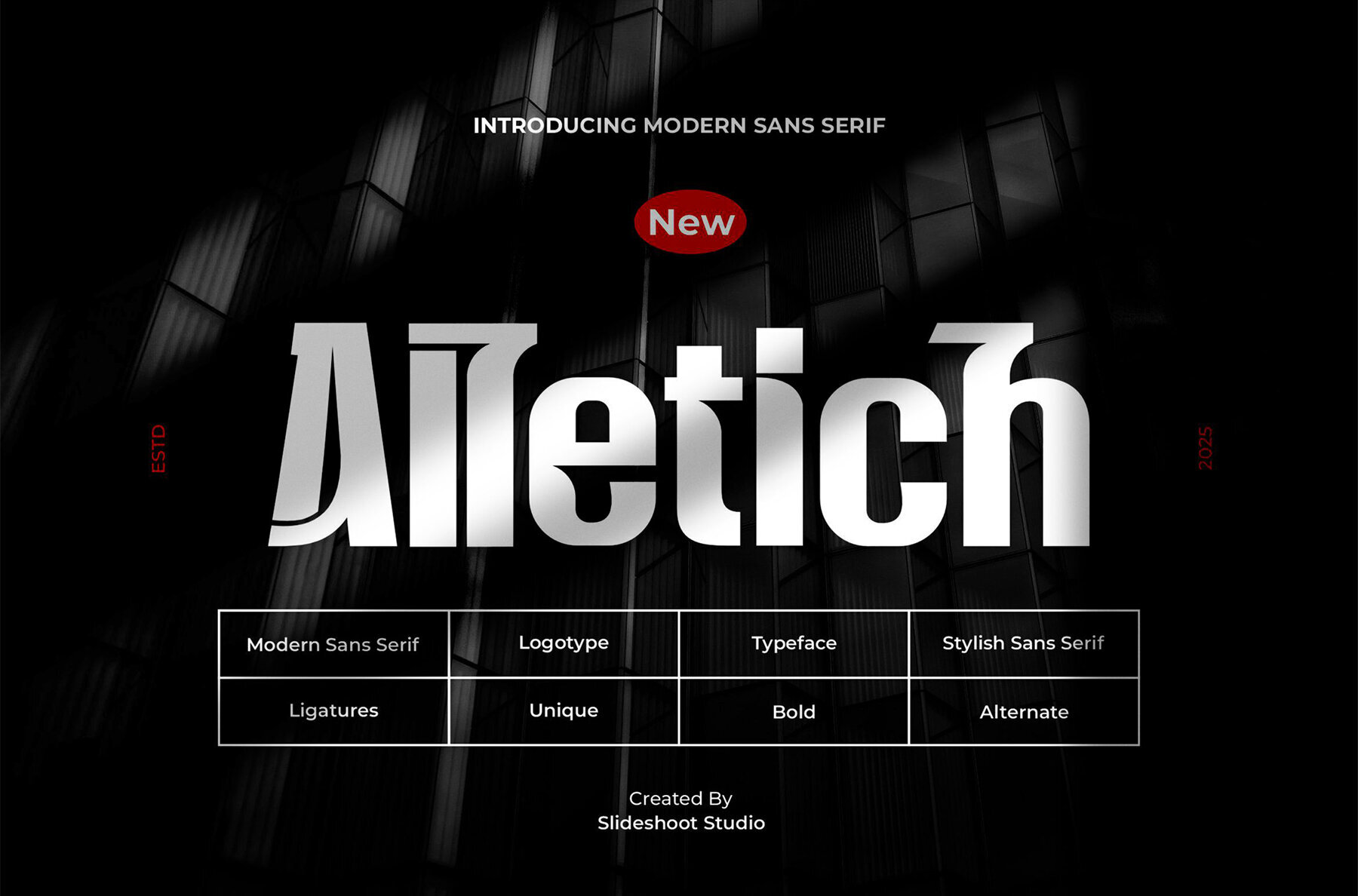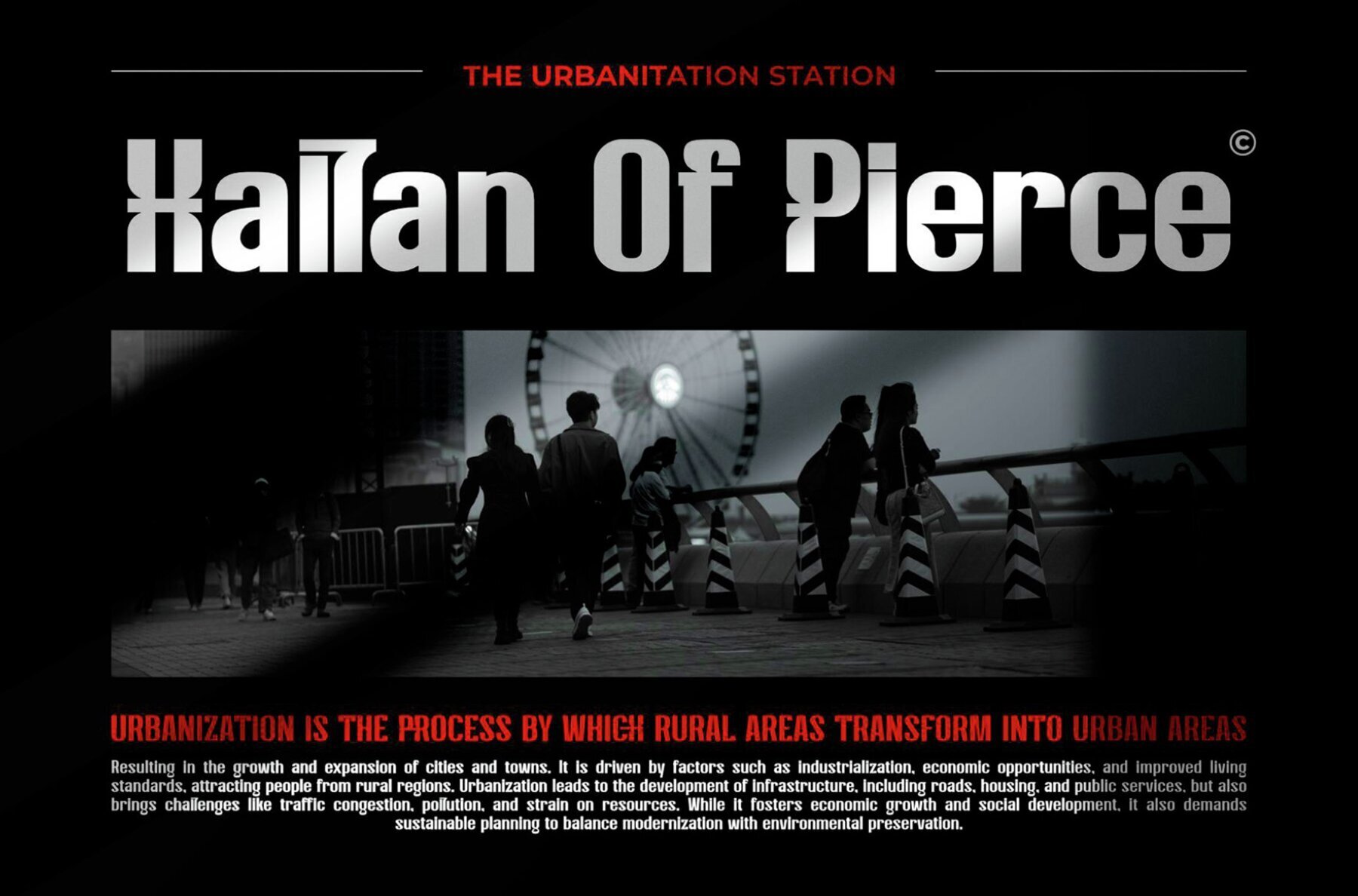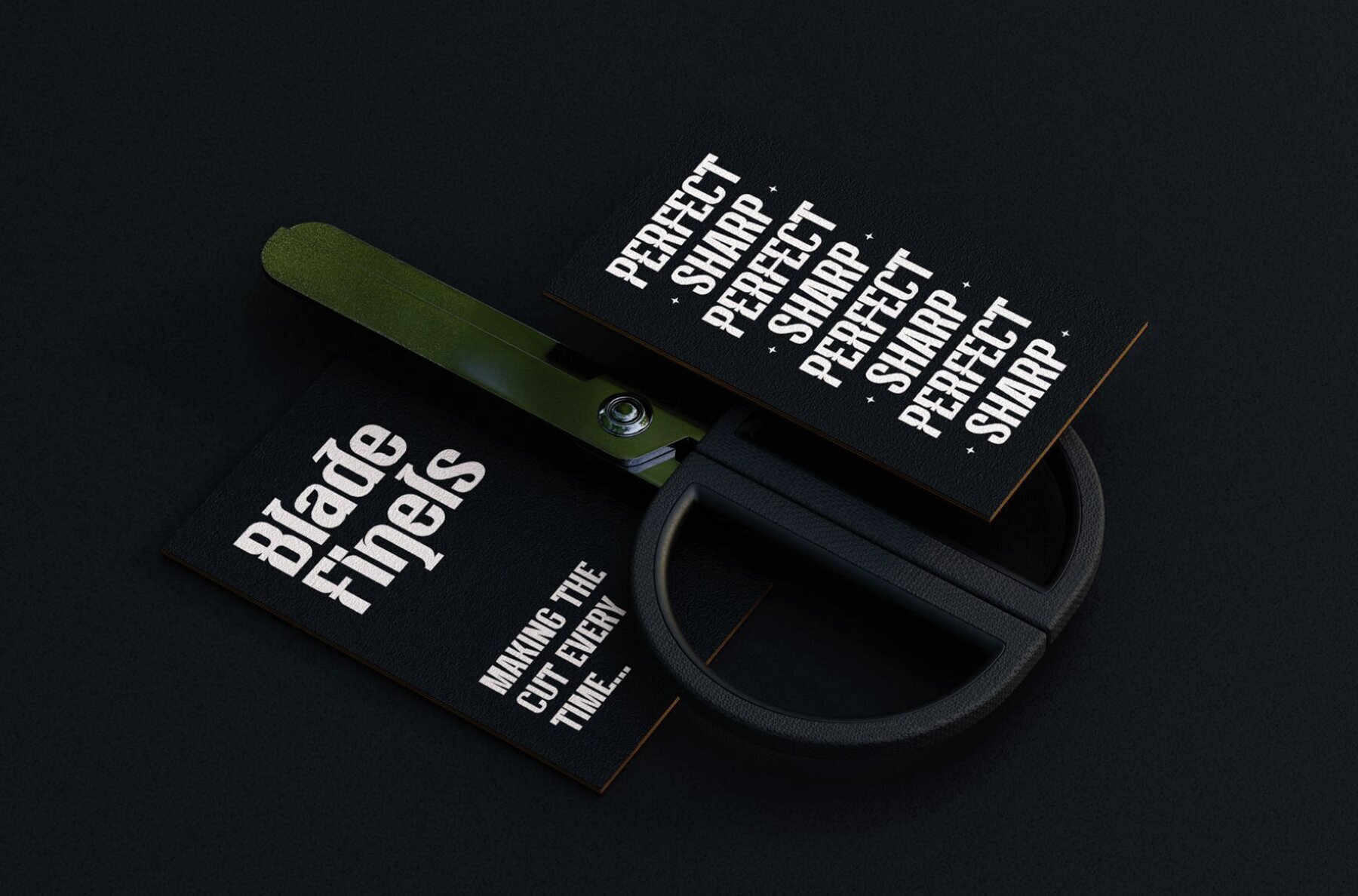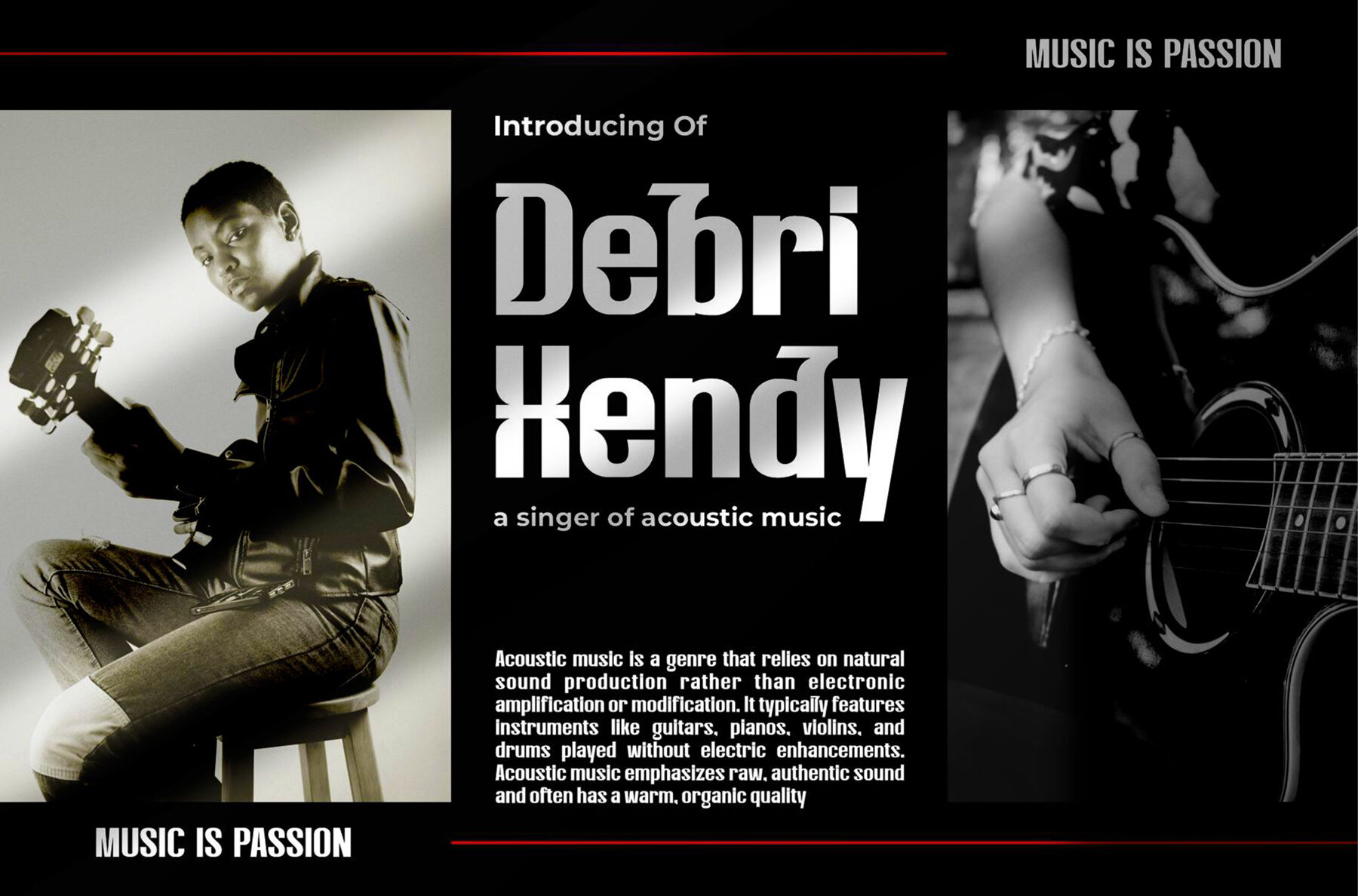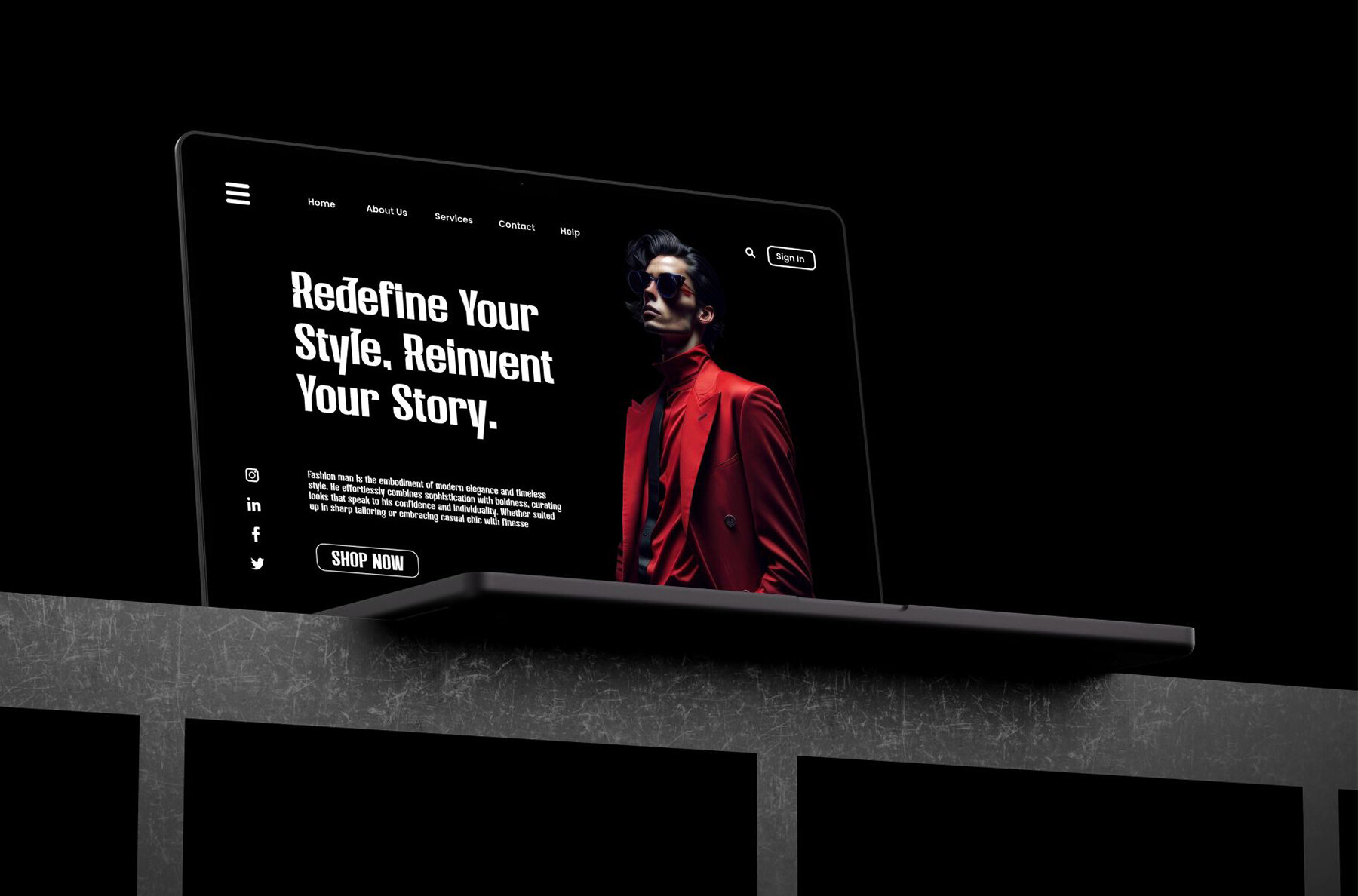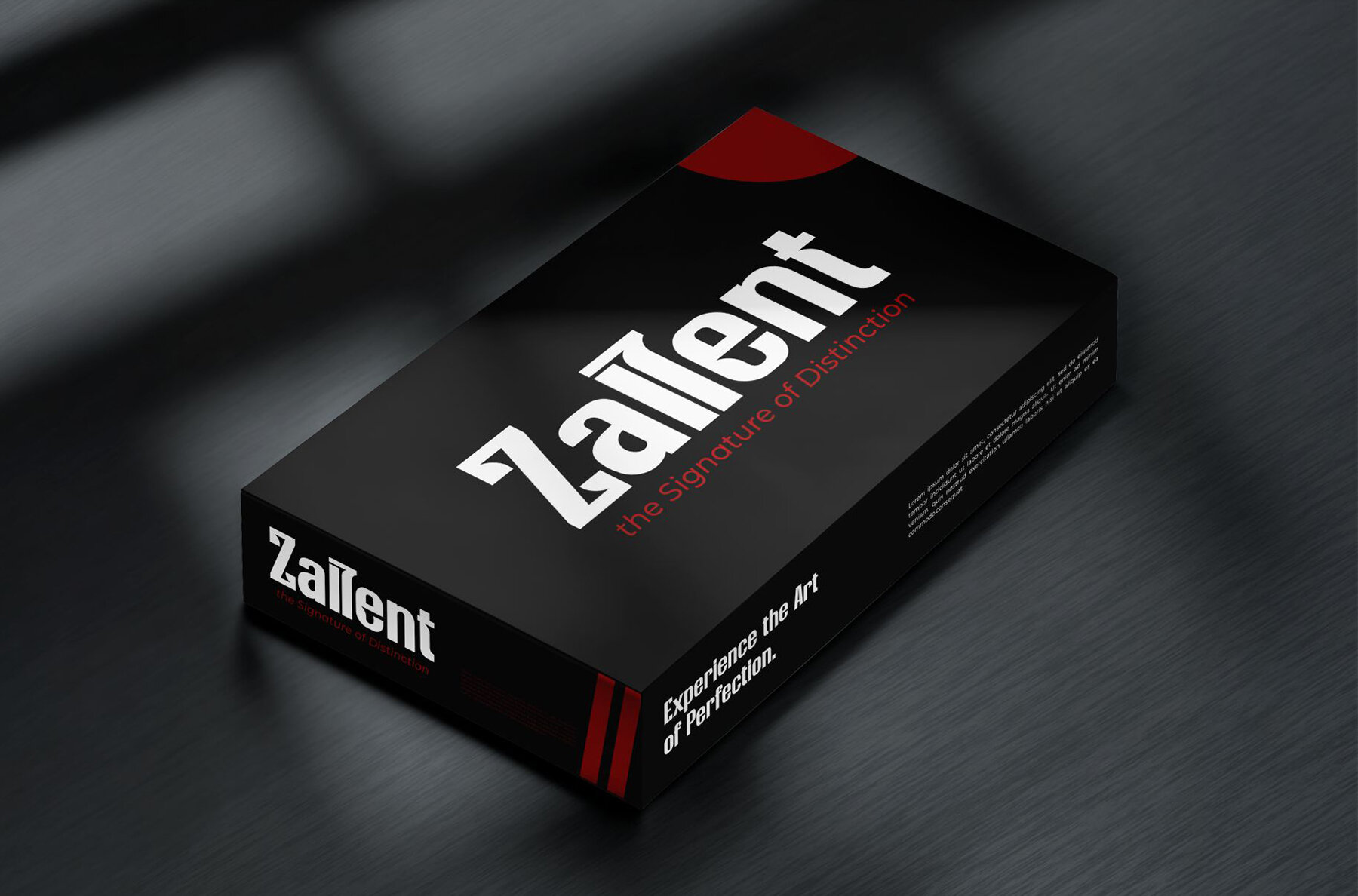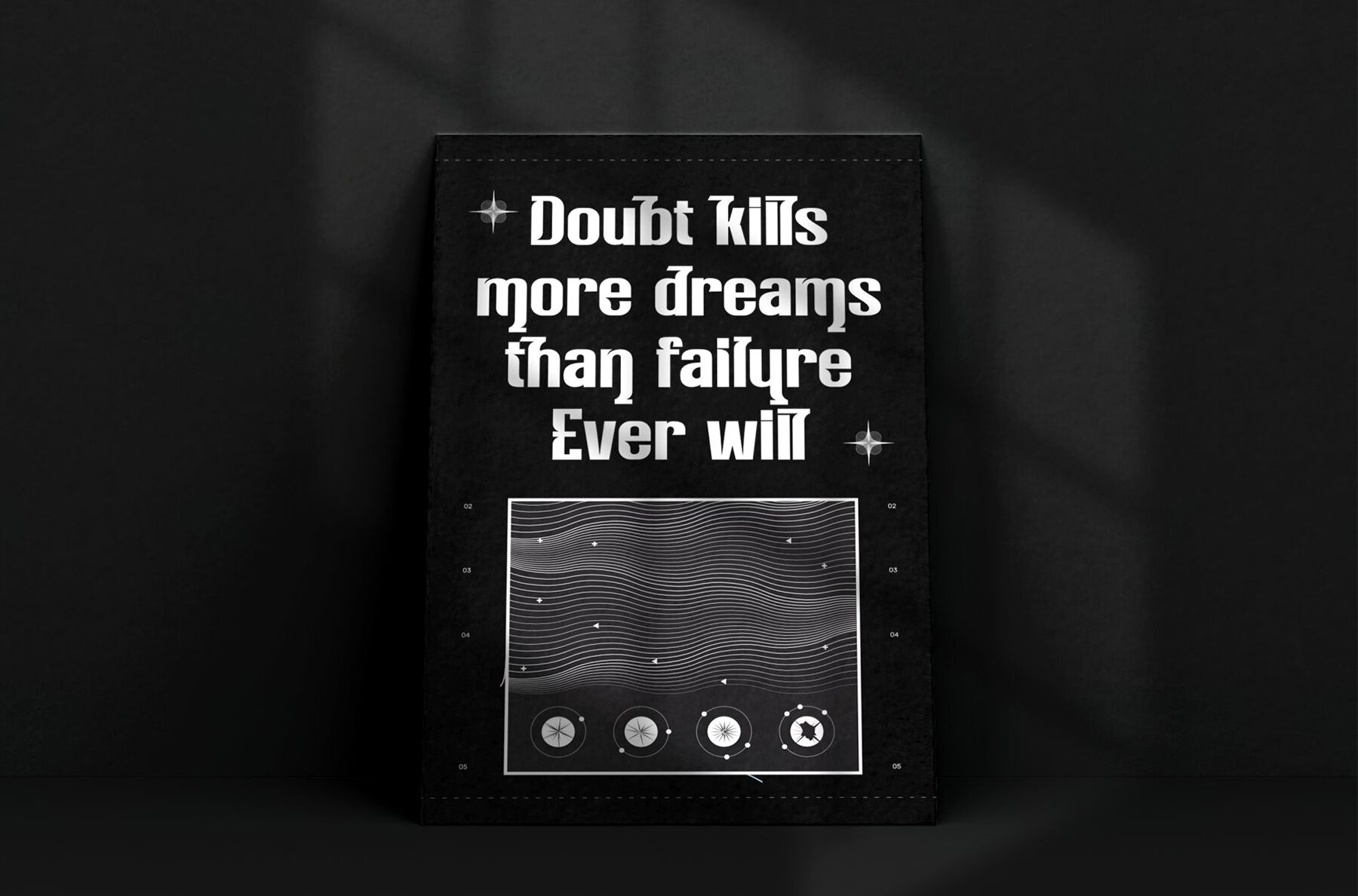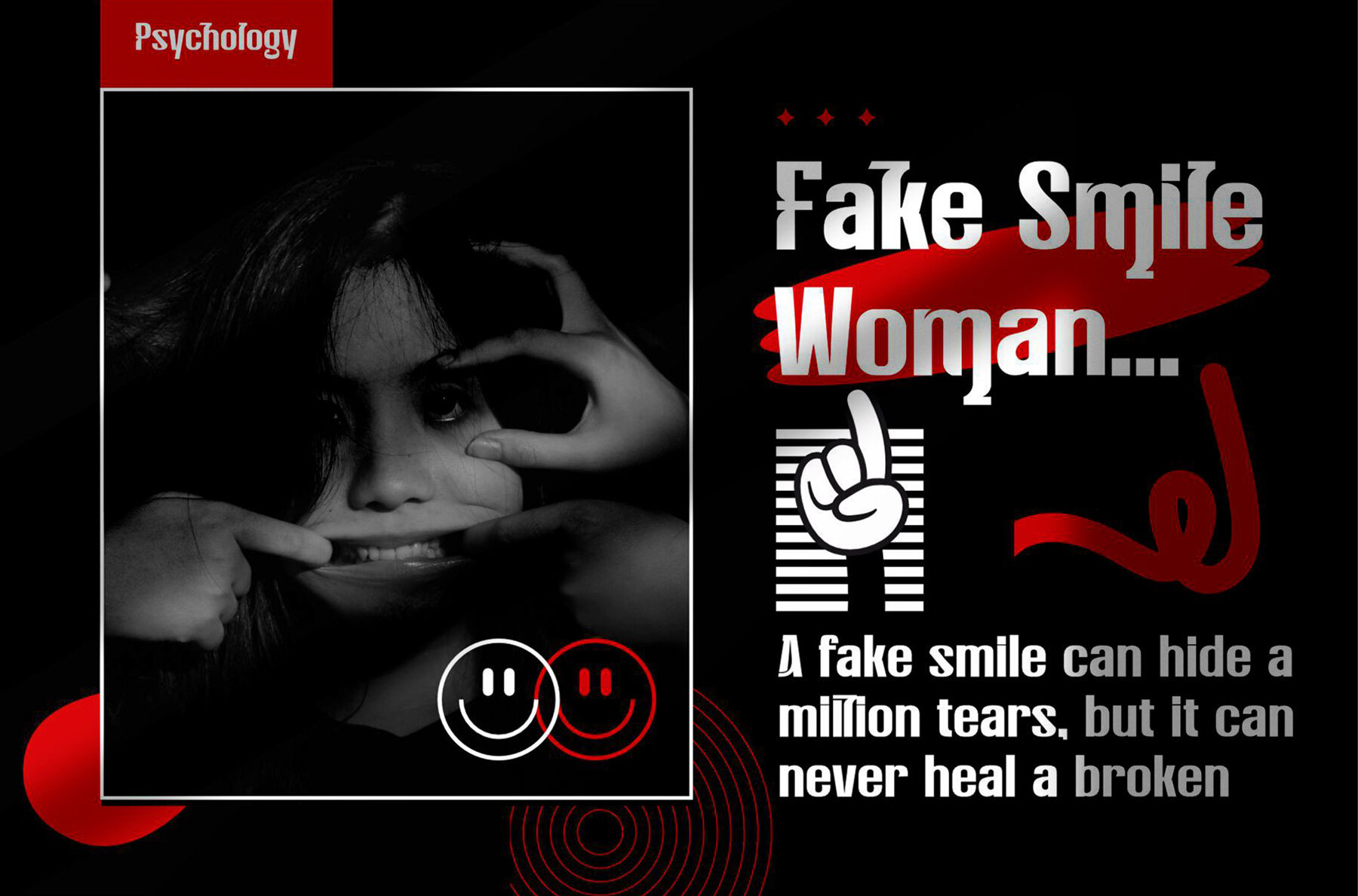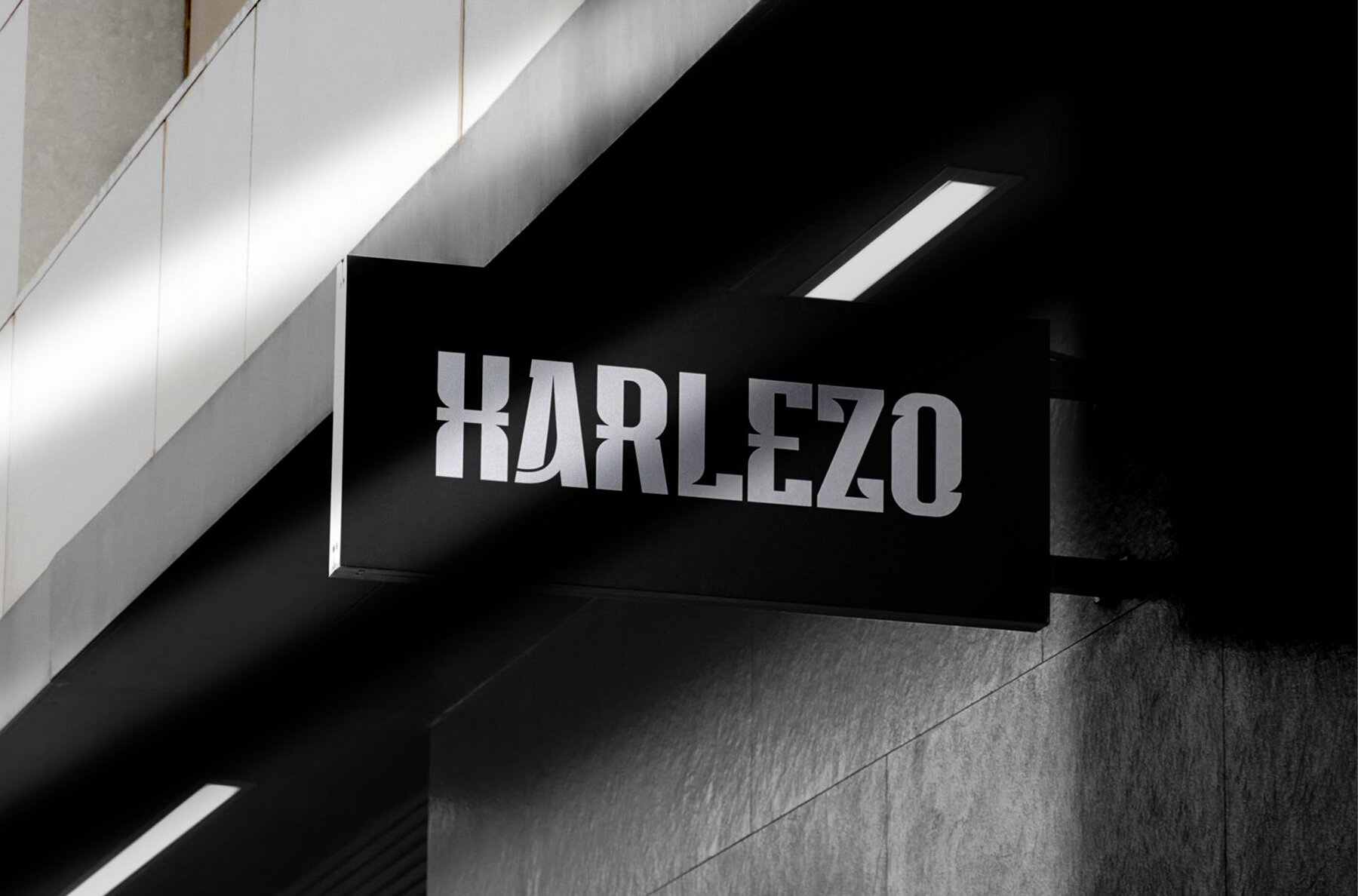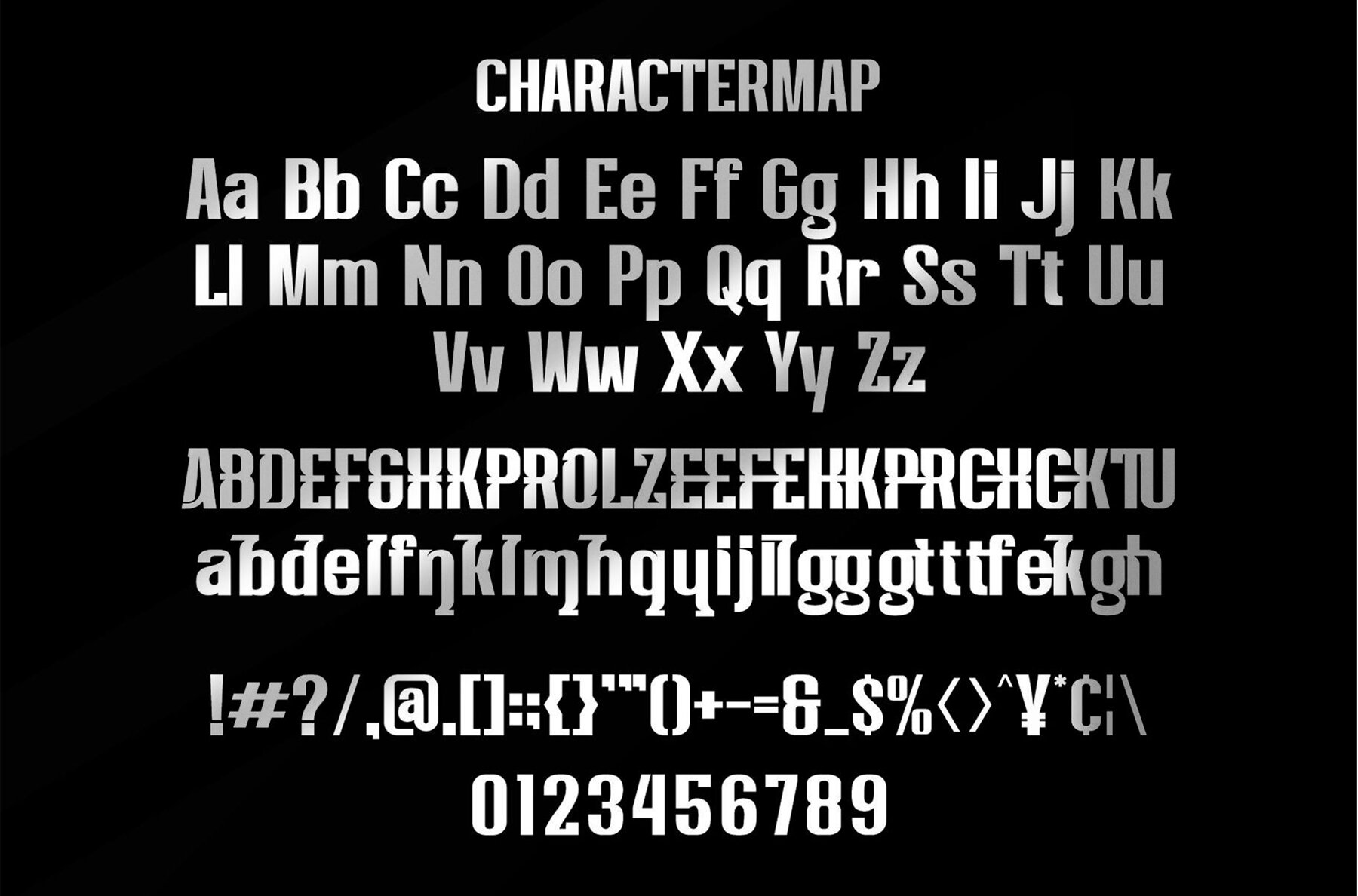
Alletich Font
Alletich
Alletich is a sans serif font that exudes contemporary elegance, making it an ideal choice for various design projects. From branding and logo designs to posters and packaging, this versatile font fits seamlessly into any aesthetic. Use it to create compelling visuals for magazines, book covers, and special events, all with a touch of modern sophistication.Alletich: Modern Elegance in Typography